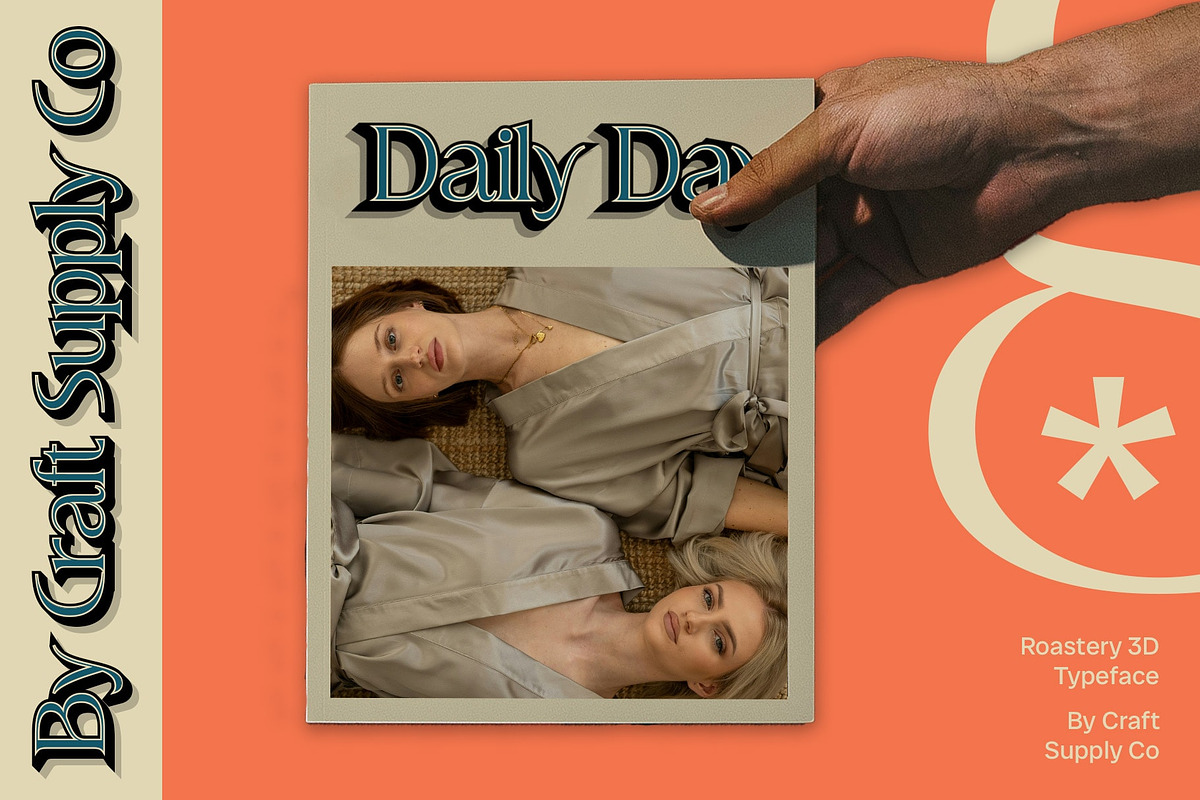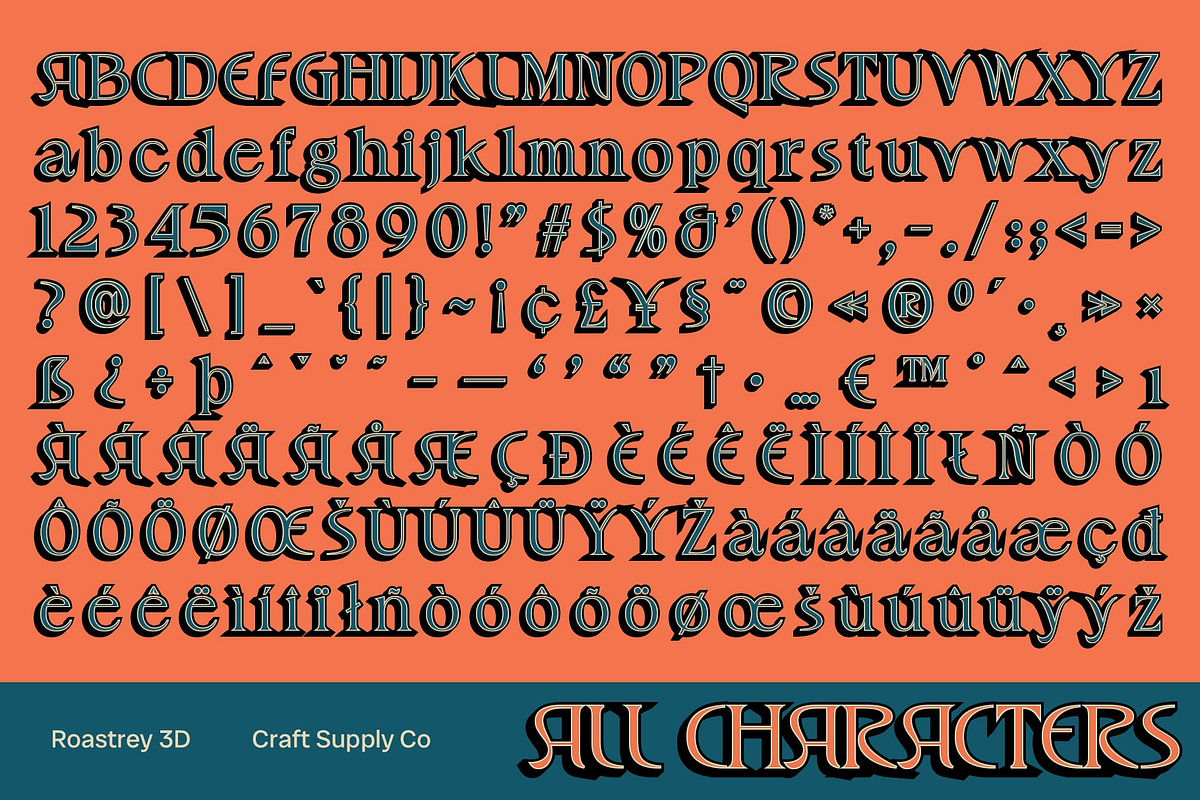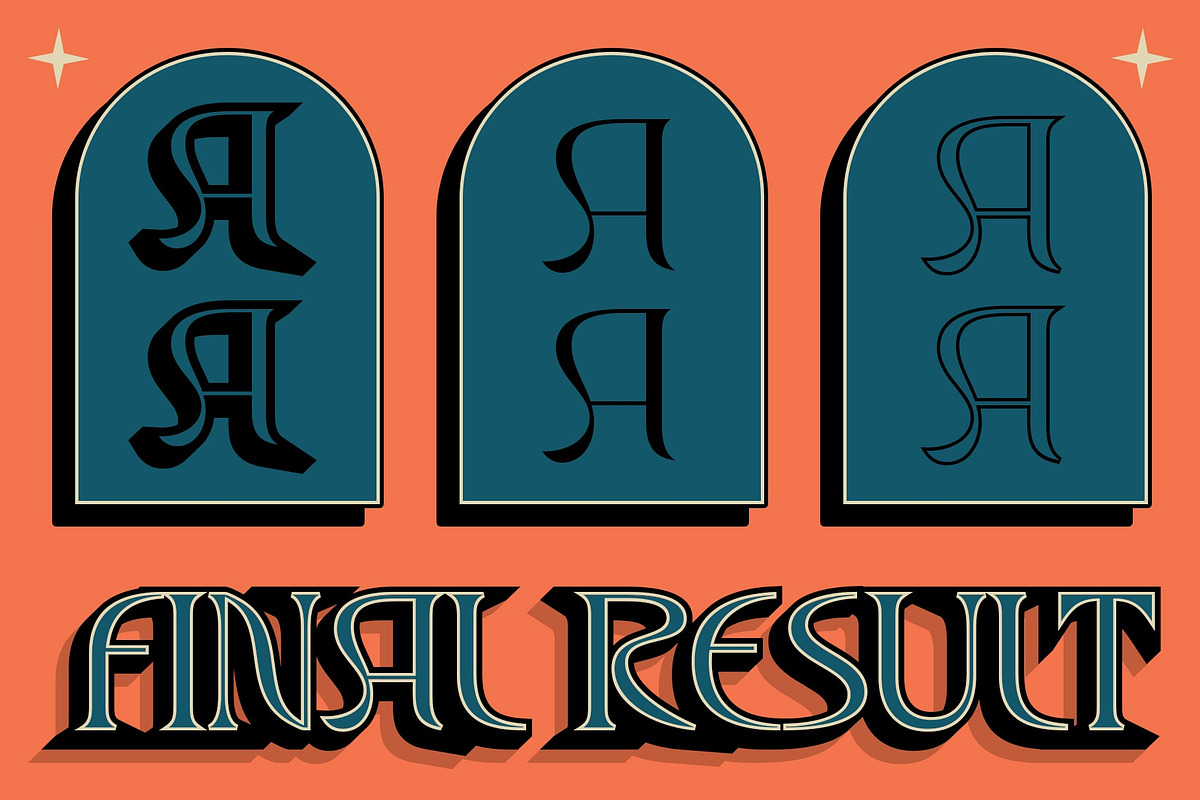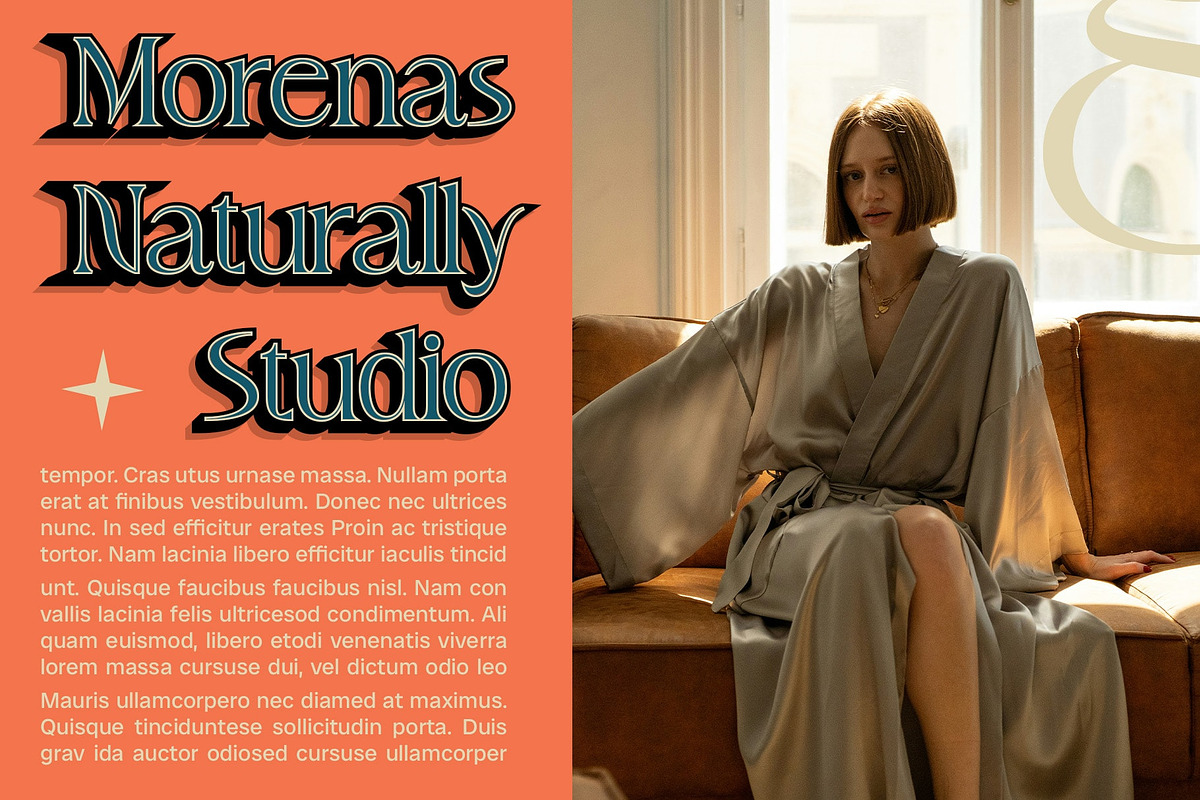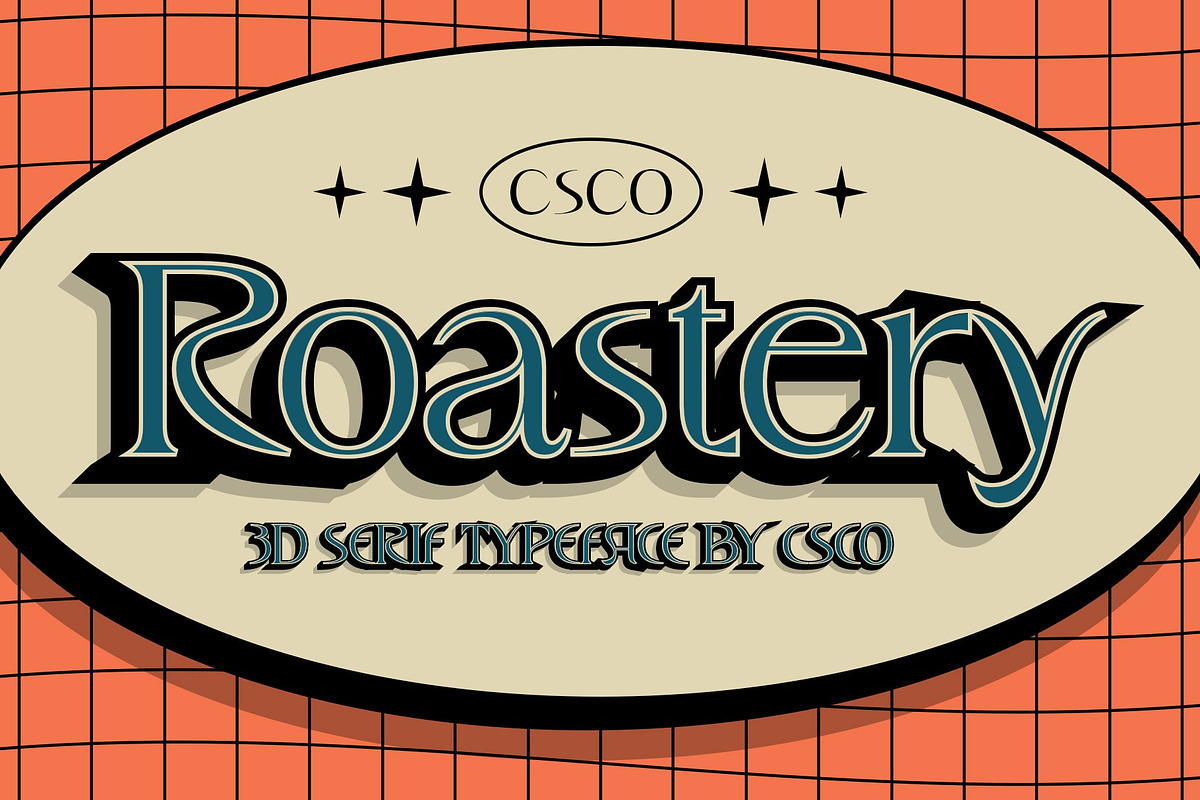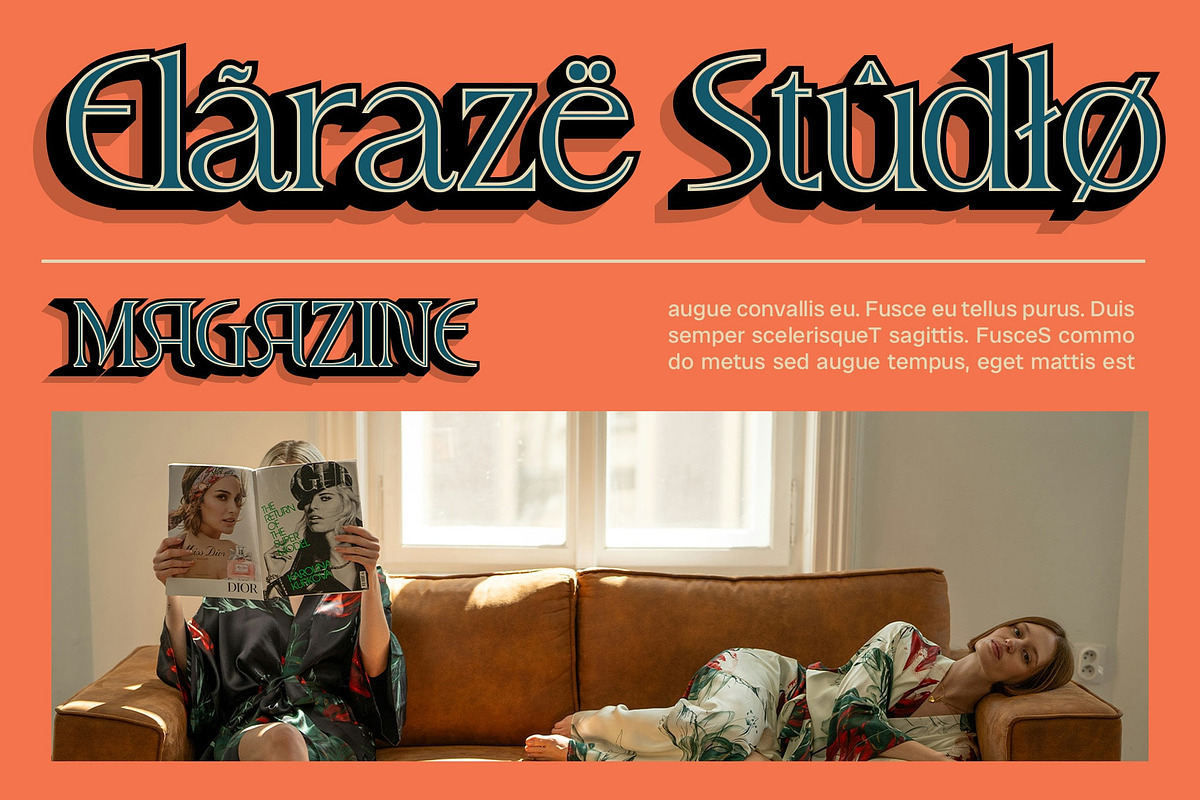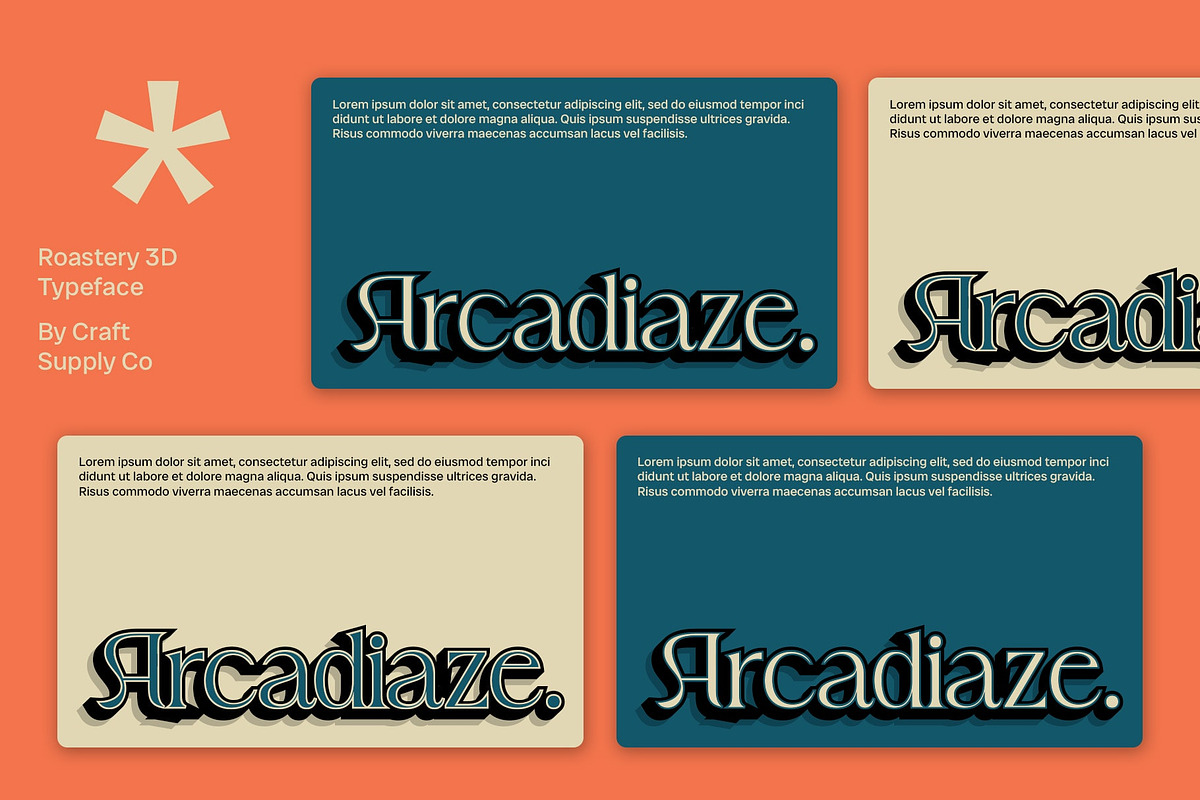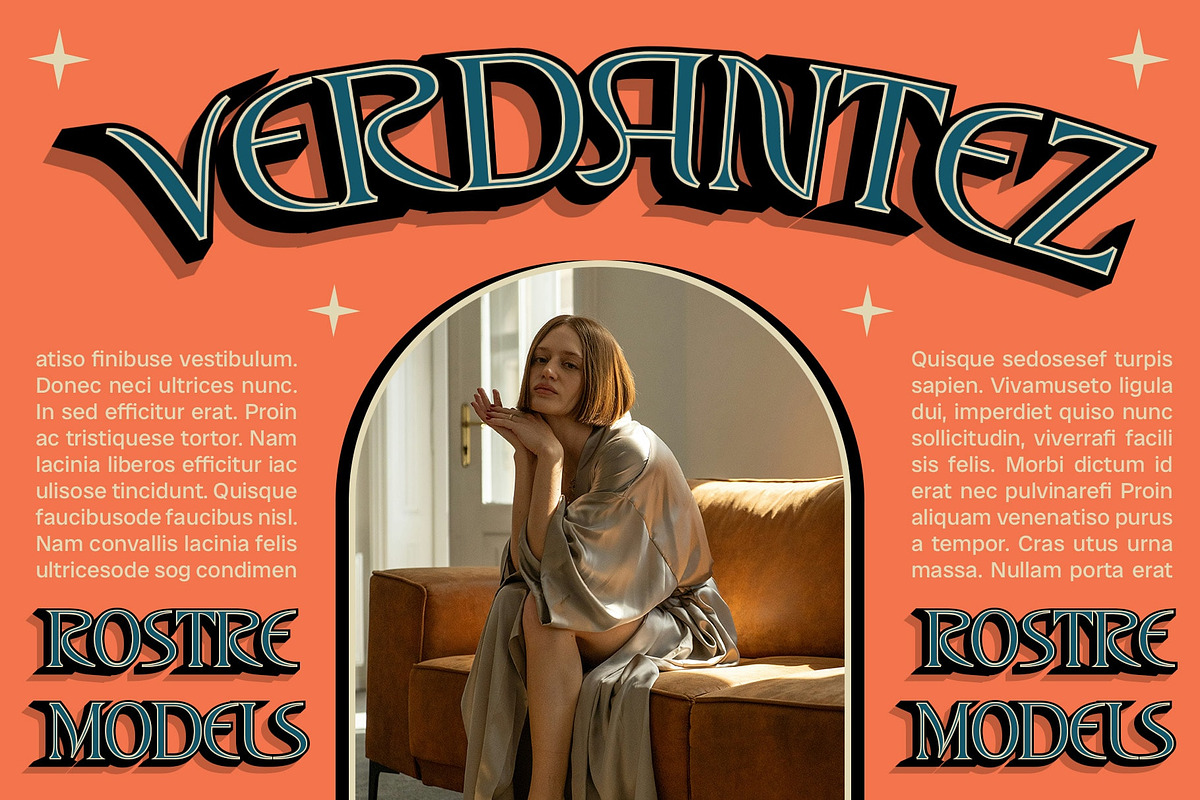
CS Roastery 3D
CS Roastery 3D: Elegance and Innovation in One Design
Modern Serif Design with Smooth Lines
CS Roastery 3D is a modern serif font characterized by its sleek design and smooth lines, conveying a sense of elegance. Its contemporary serif elements offer a refined appearance that is perfect for sophisticated design projects.
Captivating 3D Effect
Enhancing its luxurious appeal, CS Roastery 3D features an integrated 3D effect that adds visual depth and dimension. This effect brings the font to life, making it suitable for innovative and high-end designs.
Ideal for Luxurious Designs
Designed for projects that require a luxurious and innovative appearance, this CS 3D font is ideal for branding, editorial layouts, and premium print materials. Its combination of modern serif design and 3D effect ensures a striking and memorable visual impact.
Versatile Application
Despite its elegant and luxurious appearance, this CS 3D font is versatile across various design applications. Whether used in digital interfaces, printed media, or packaging, this font maintains readability and clarity while adding a touch of sophistication.
Conclusion
In conclusion, CS Roastery 3D is a modern serif font that blends elegance and innovation. With its smooth lines and captivating 3D effect, this font enhances any design project with a luxurious and visually appealing presence.